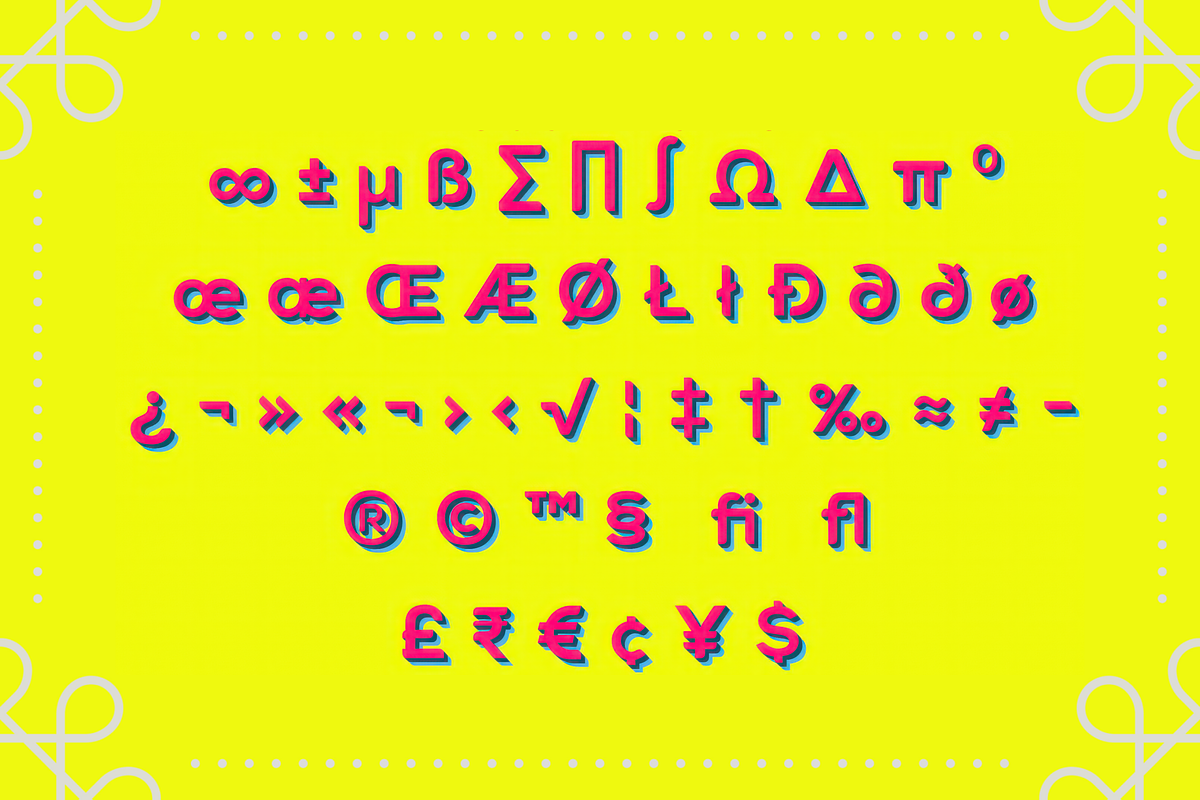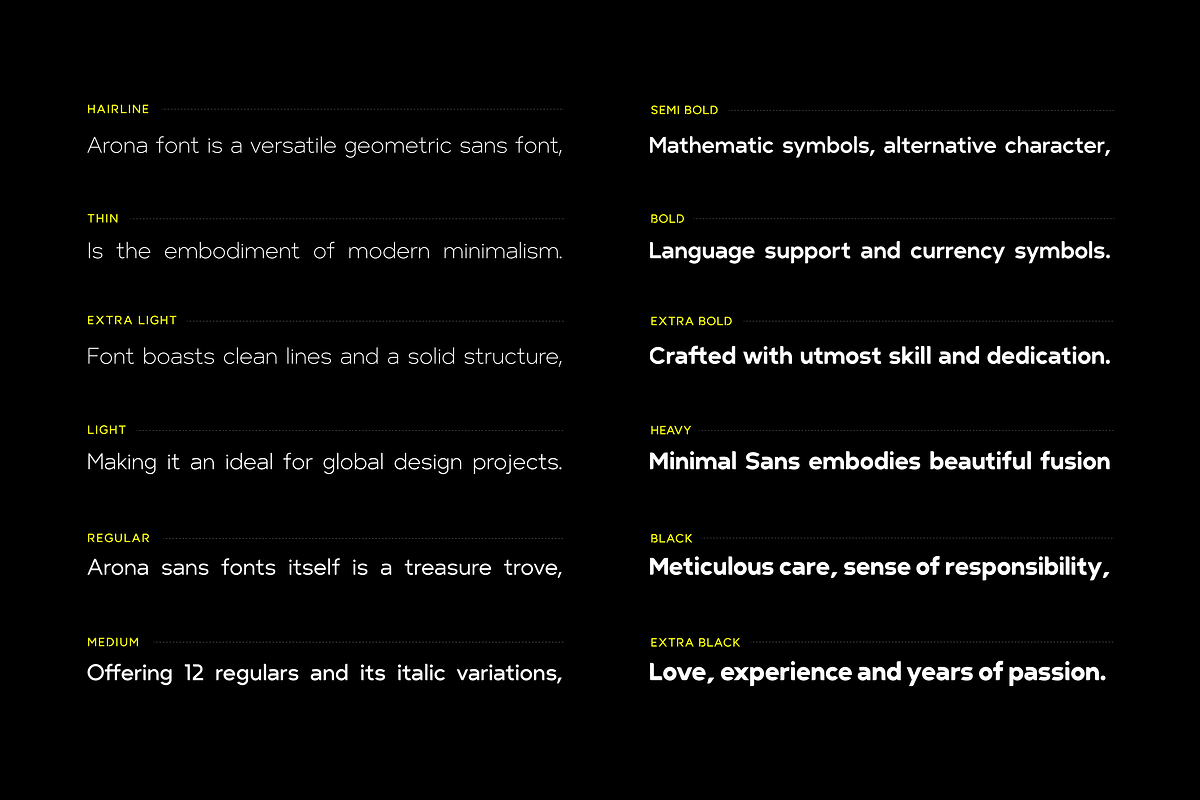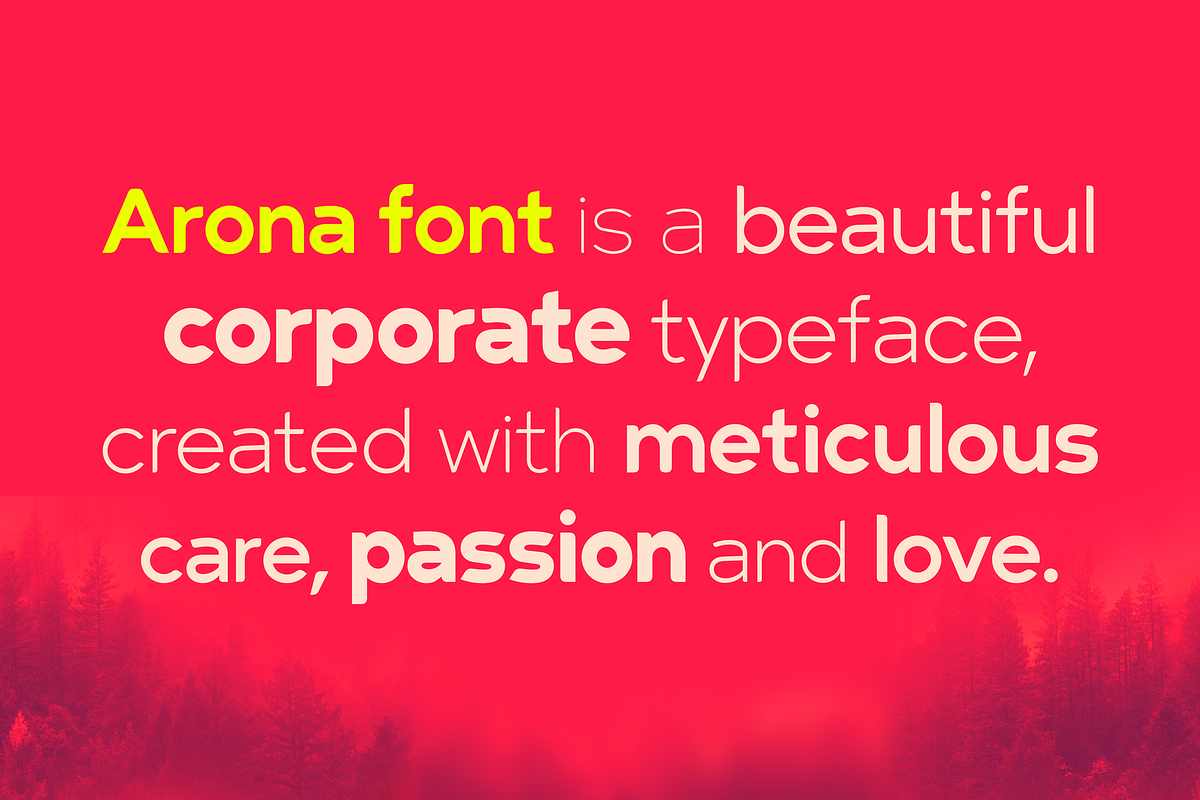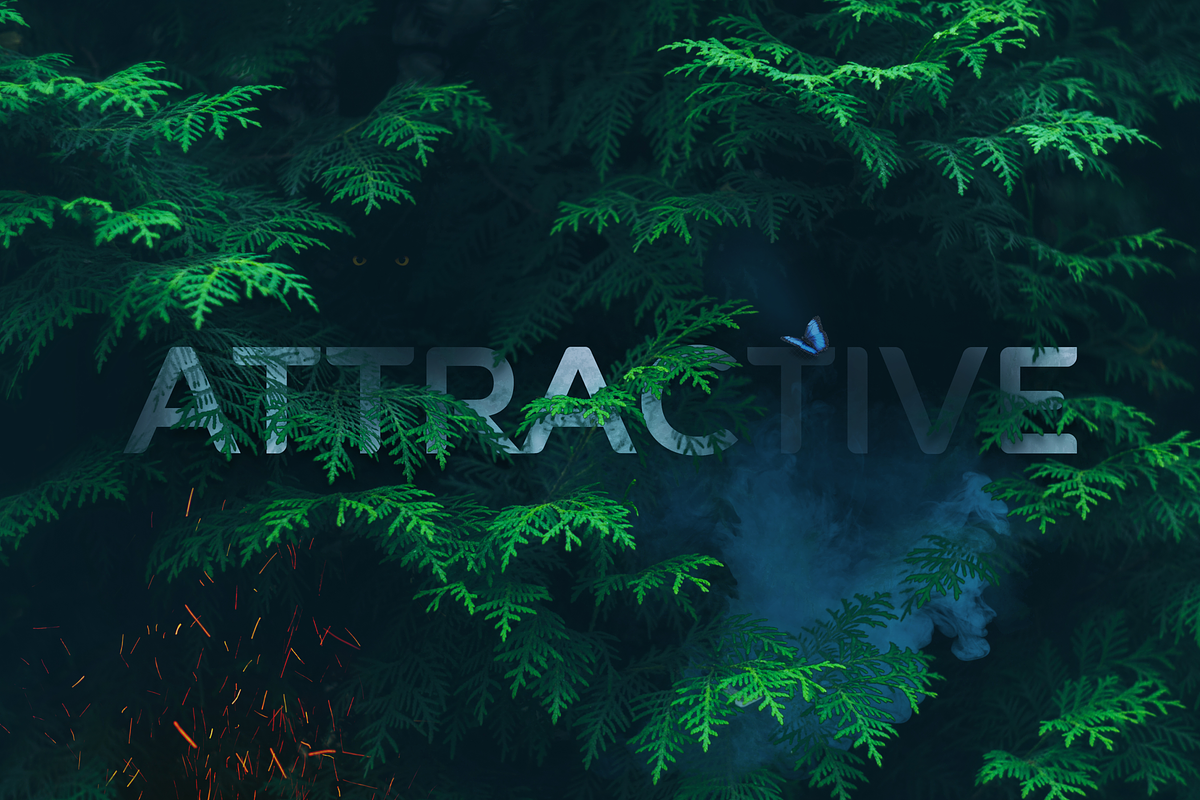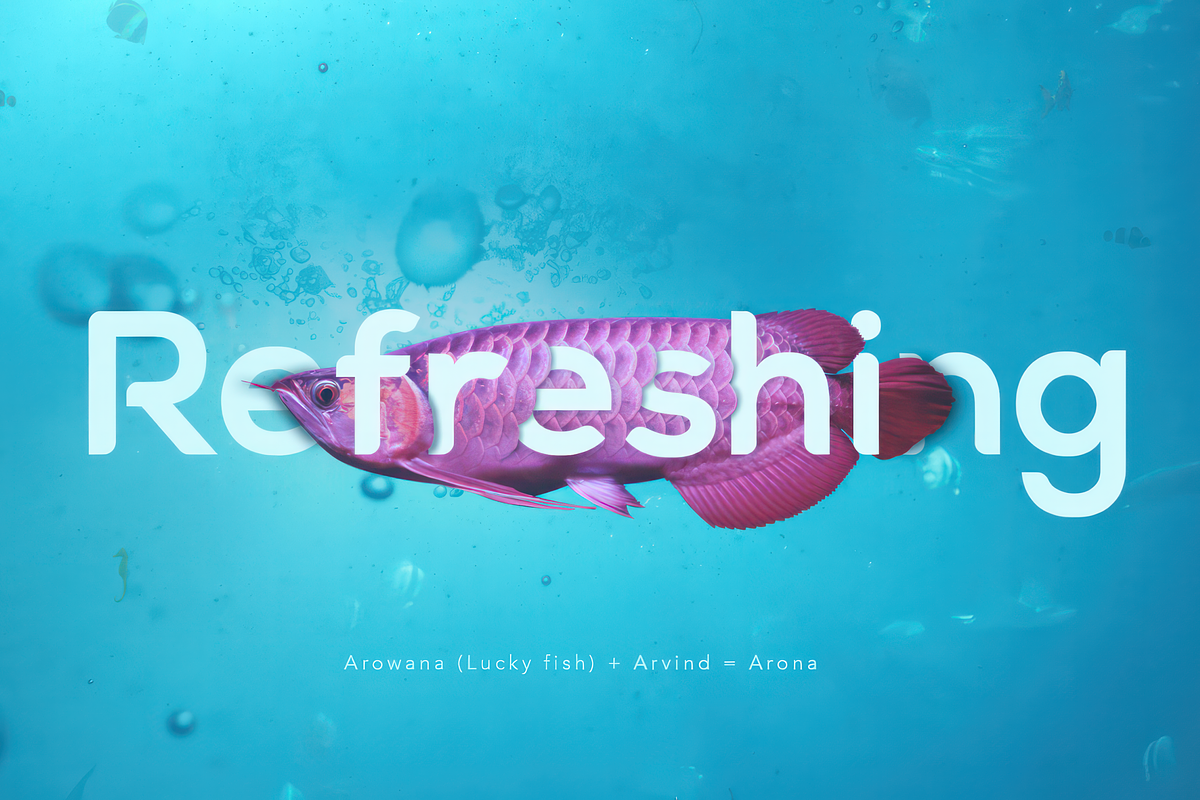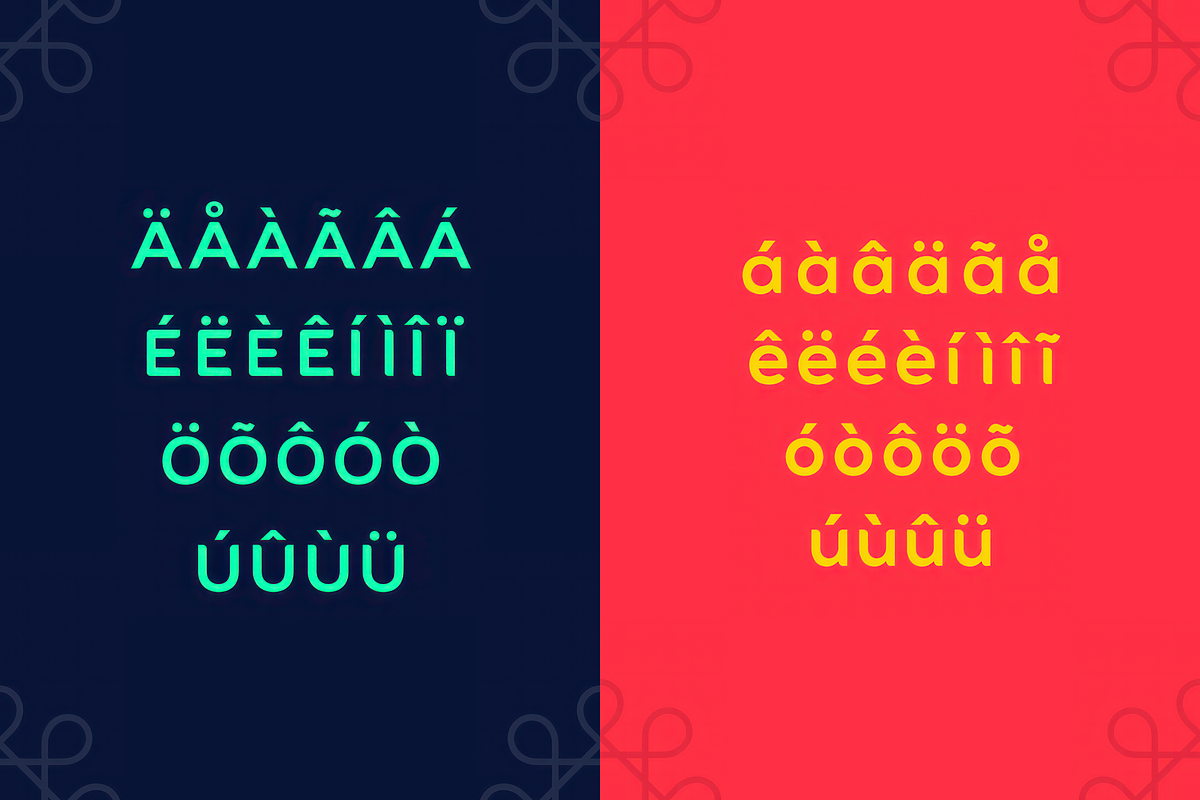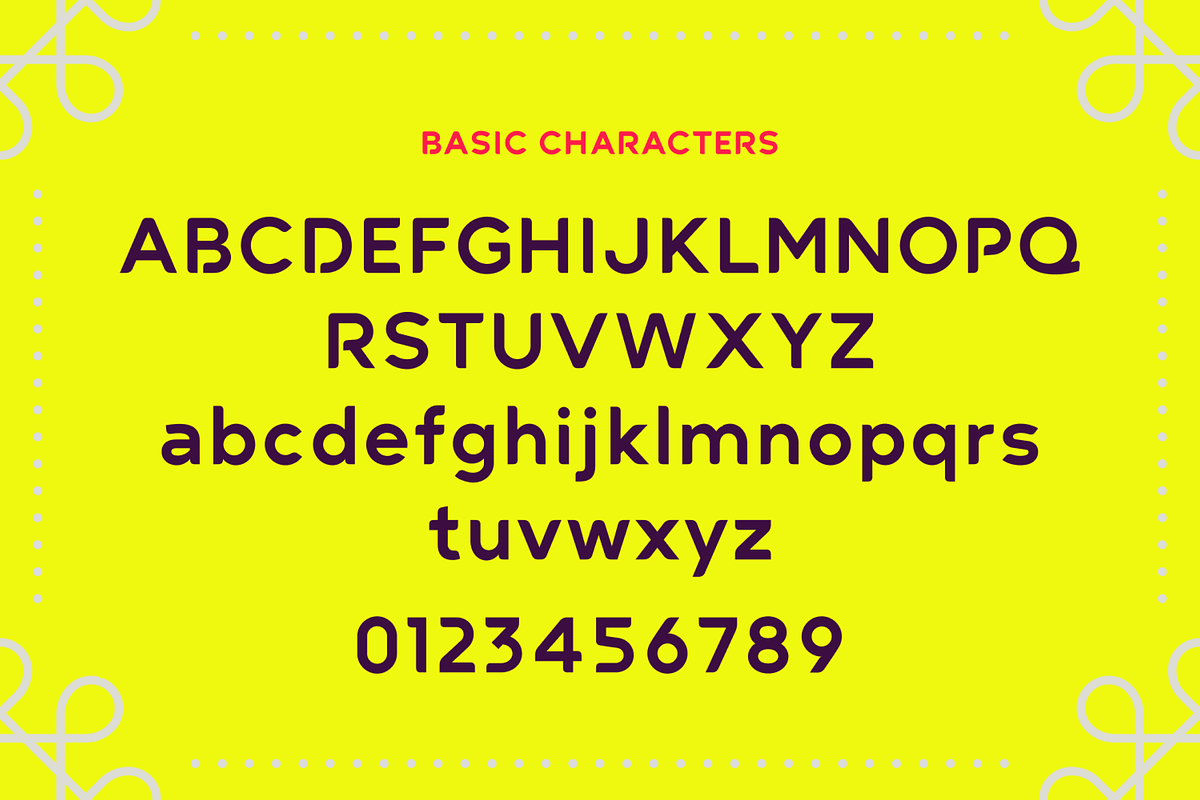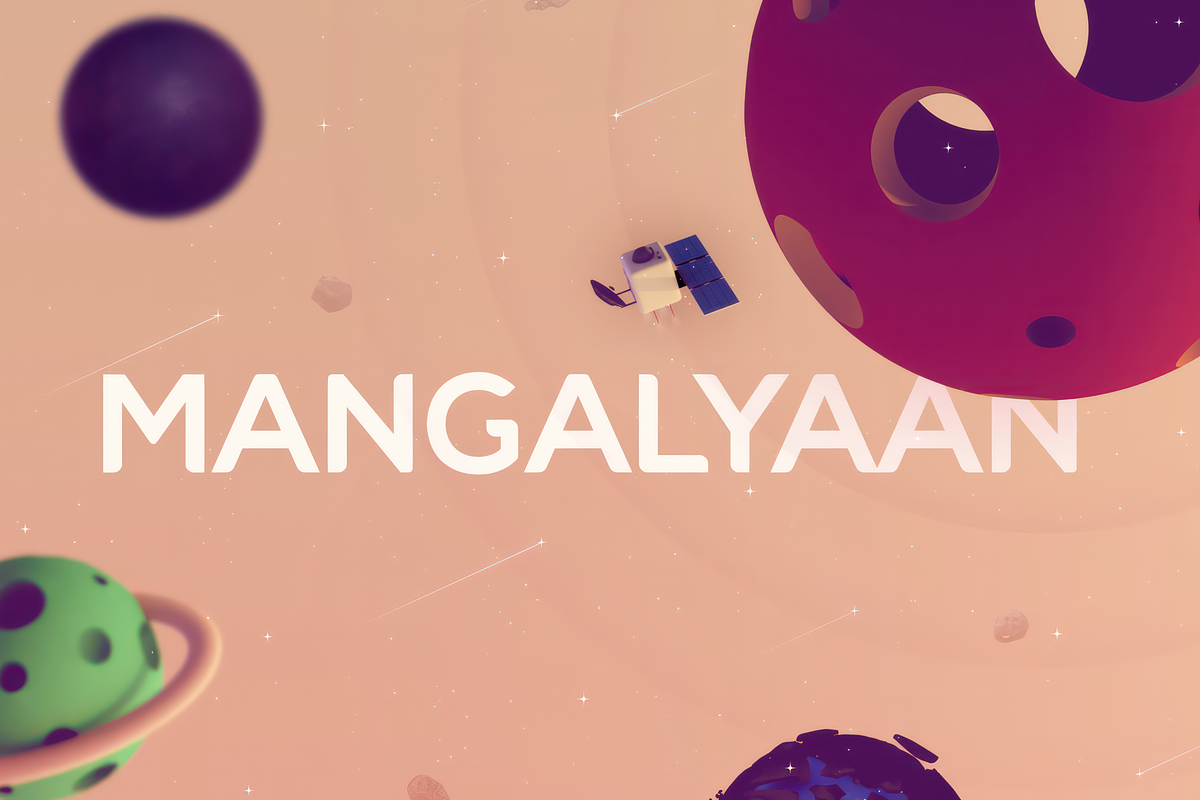
ARONA FONT FAMILY - 24 fonts
Arona is a modern geometric sans typeface tailored to elevate all your design projects, from UI and app design to web design, branding, posters, magazines, infographics, packaging, and beyond. With its sharp yet rounded strokes, Arona effortlessly radiates both professionalism and friendliness. Boasting 12 font weight variations, Arona excels in delivering a multi-level content hierarchy in your design, ensuring your value is communicated clearly and easily.
- Extended language support
- Small capitals
- Mathematical symbols
- Currency symbols
- Alternate stylish letters
- Directional arrows
- Fraction support
- Special ligatures
- Numerator and Denominator support